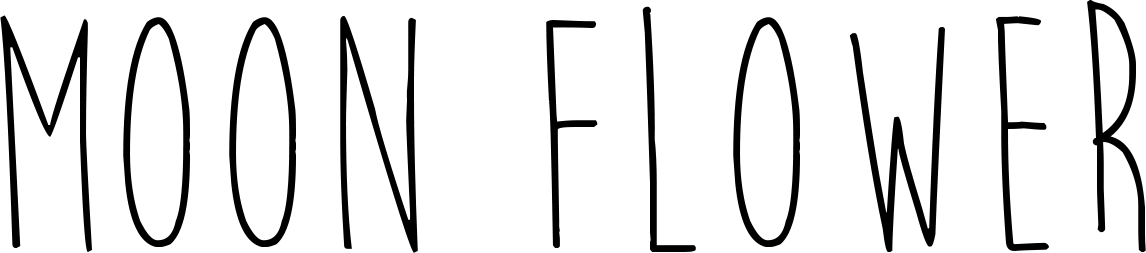
Moon Flower Font
As long as the skinny characters of Moon Flower reserve a tall structure, you’ve got nothing to worry about in terms of drawing attention to your typography. This beautiful handwriting font, even though friendly and playful, is only available in the uppercase version.
However, even without any lowercase, Moon Flower makes a great choice for lettering games, postcards, posters, greeting cards, or anything else.